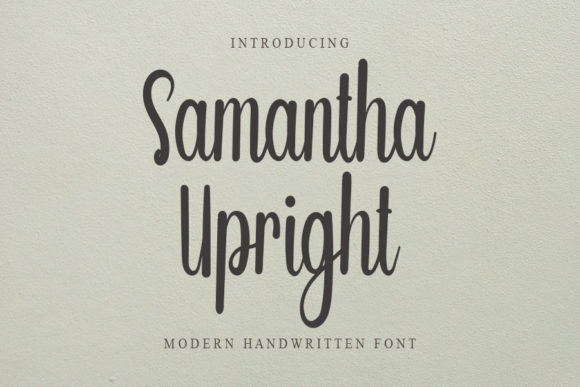
Welcome to the realm of Samantha Upright, the script font that's not just a font, it's an experience. It's a seamless blend of classic calligraphy and modern aesthetics, designed to evoke a sense of warmth and familiarity. Samantha Upright doesn't just grace your designs; it breathes life into them.
As a small business owner, you know the importance of making a lasting impression. Your brand is your voice, and your font is the tone you use to speak to your audience. Samantha Upright isn't just a font; it's a powerful tool that helps you connect with your customers on a deeper level.
With its elegant curves and playful flourishes, Samantha Upright adds a touch of whimsy and charm to your designs. Your customers will feel welcomed and appreciated right from the start, encouraging them to engage with your brand and stay connected.
Beyond its aesthetic appeal, Samantha Upright is a workhorse that gets the job done. Its clean lines and legible characters ensure that your message is conveyed with clarity and precision. Whether you're crafting logos, designing brochures, or creating social media posts, Samantha Upright is your trusted companion, helping you communicate effectively and stylishly.
Join countless small businesses who have embraced Samantha Upright as their font of choice. Experience the difference it makes when your brand speaks with a voice that's warm, inviting, and unforgettable. Let Samantha Upright be your guide as you embark on a journey of growth and success.